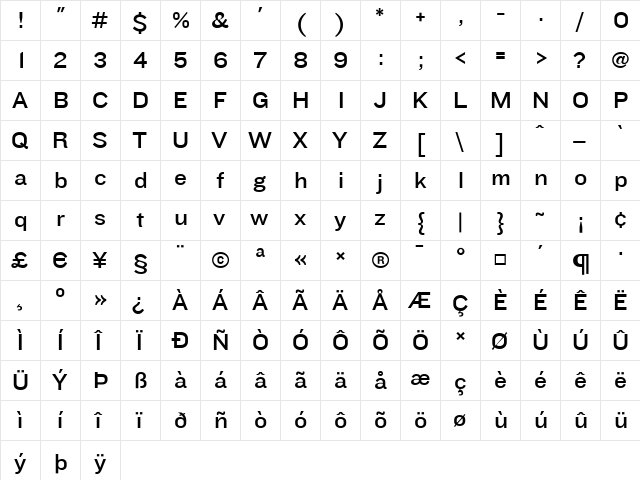
Knockout Medium Font Preview
Knockout Medium
Knockout Medium Font Details
Design Context for Knockout Typeface
Knockout offers clean, dependable letterforms without strong stylistic allegiance, making it a practical choice for designers who need flexibility.
Pro Tip: Use Knockout in both headline and body roles to test its range before committing to a single application.